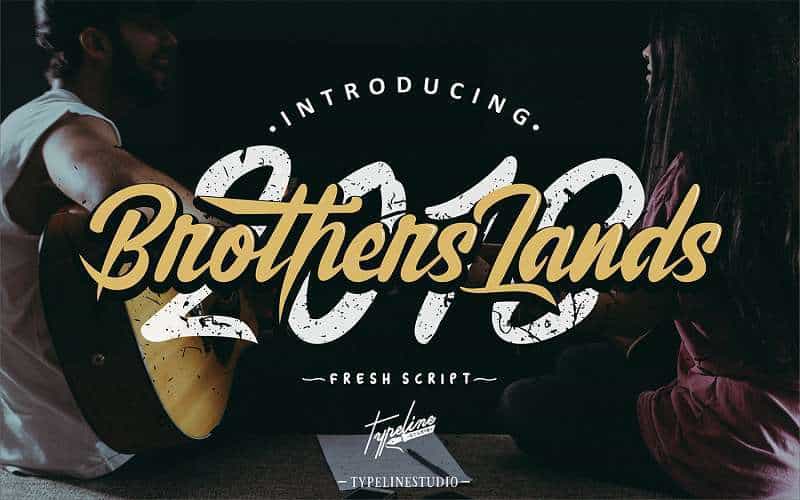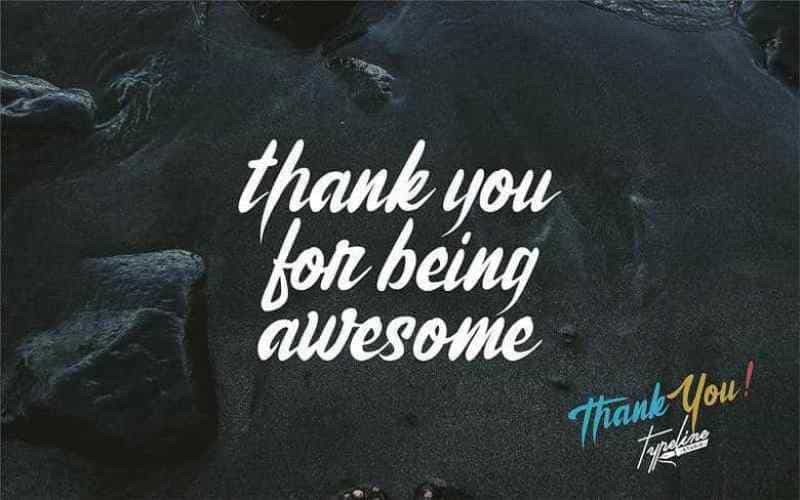
Brother Lands Script Font
Hello Designer! Here is an example of the new typeface called Brother Lands by Typelinestudio NY which is a brush script font with character and style! As a result, if you want to brand anything from quotes and products to Tshirts, communitary events such as Automotive Club or magazine publications, fashion shows, clothing lines, then Brother Land is perfect for you because of the tough brush style.